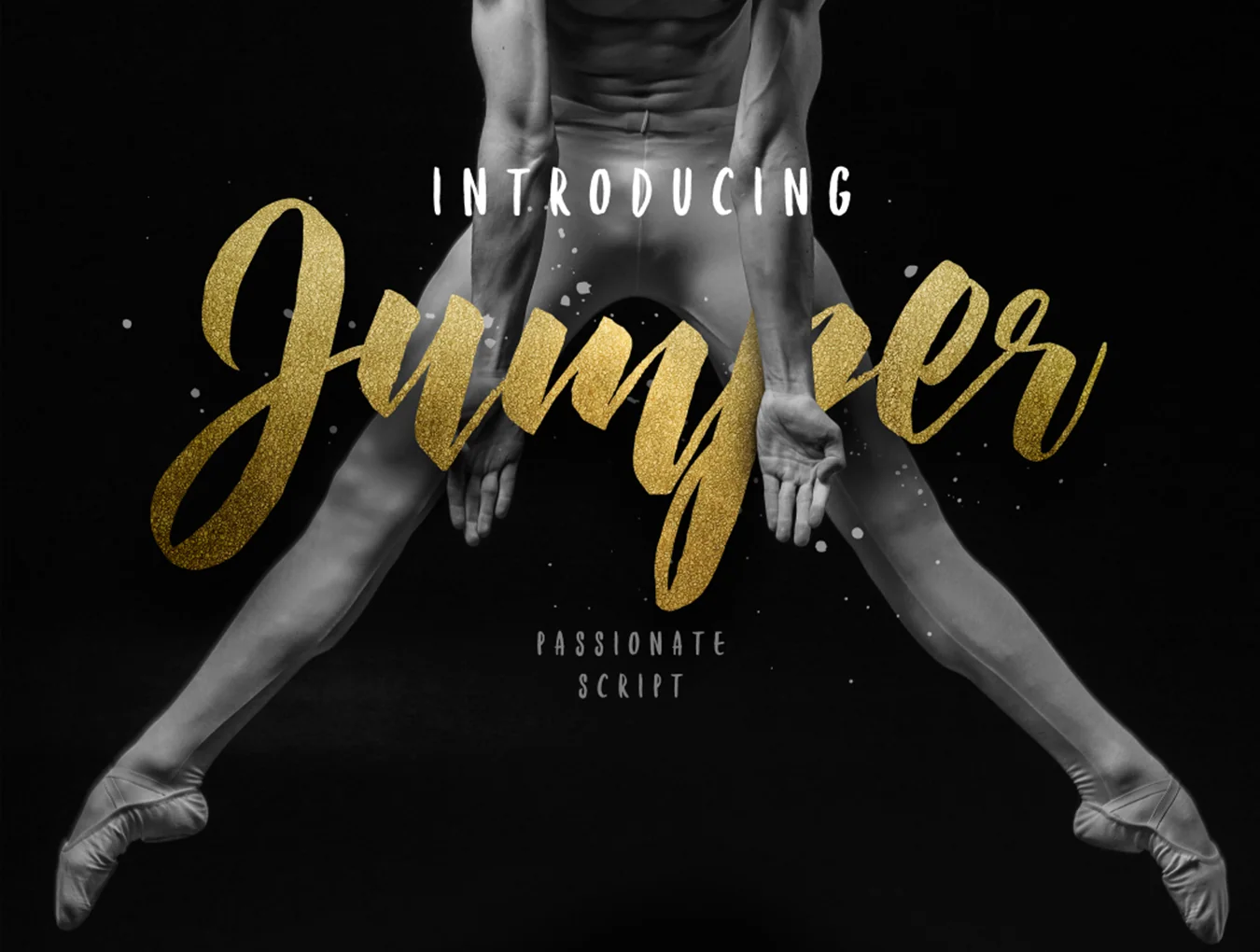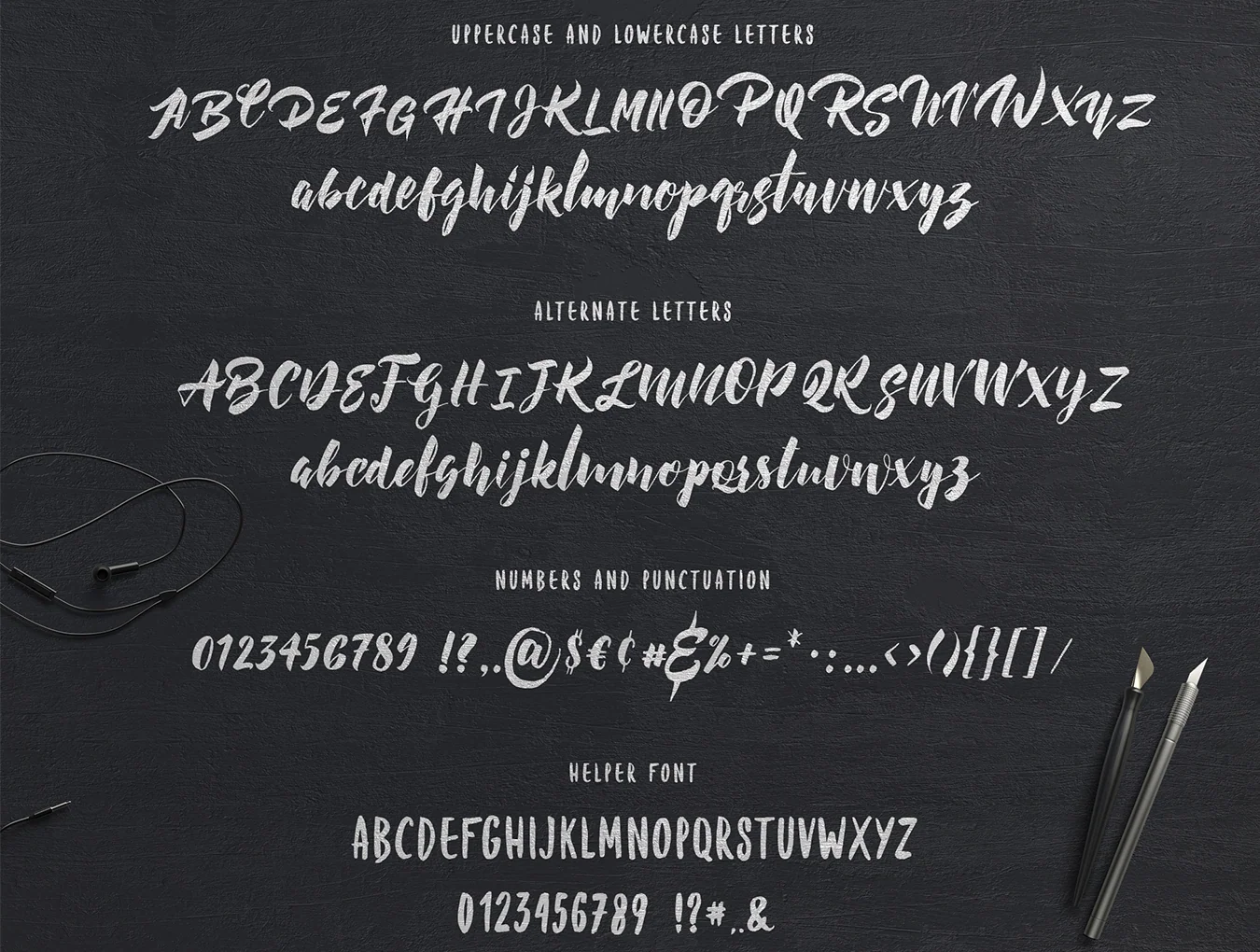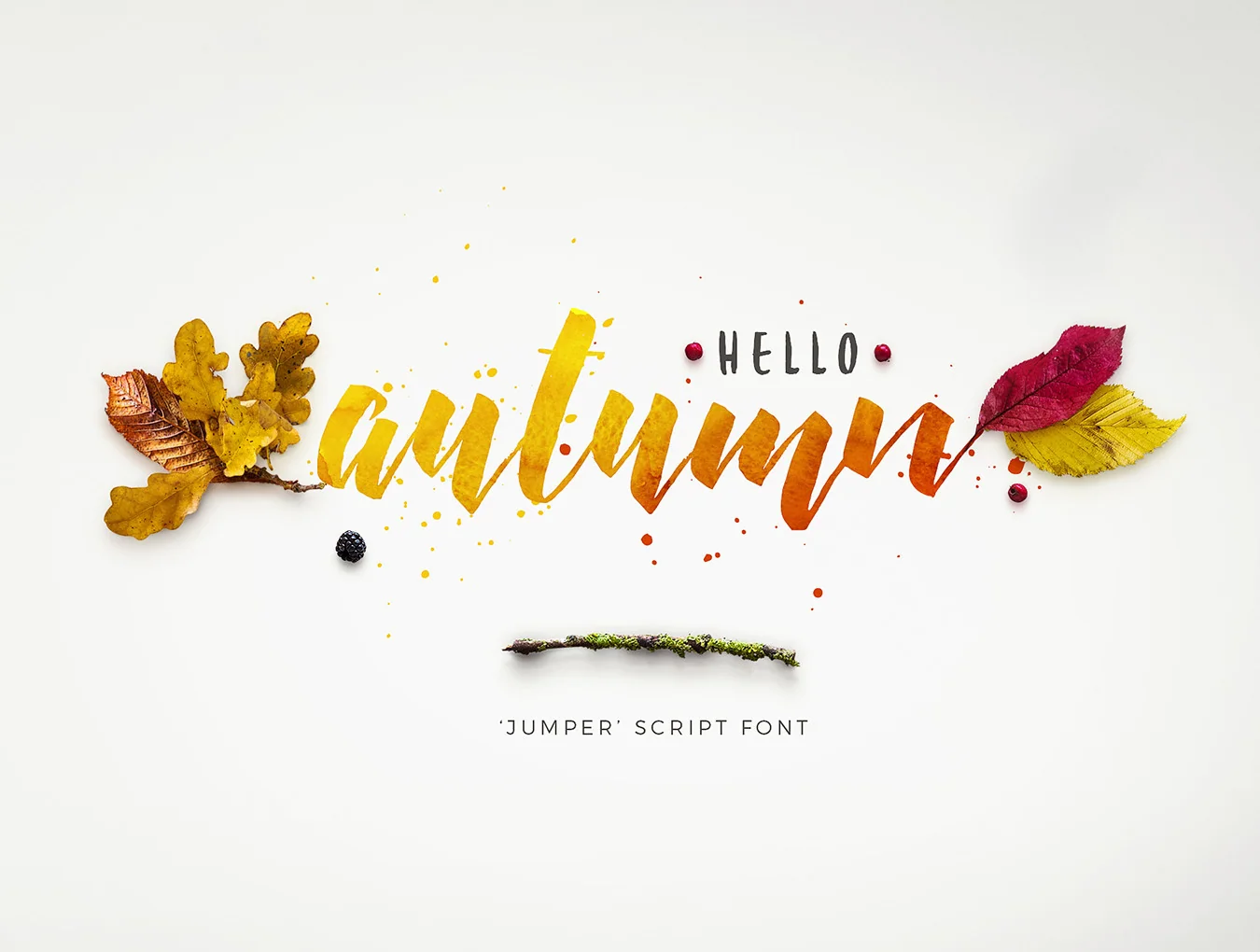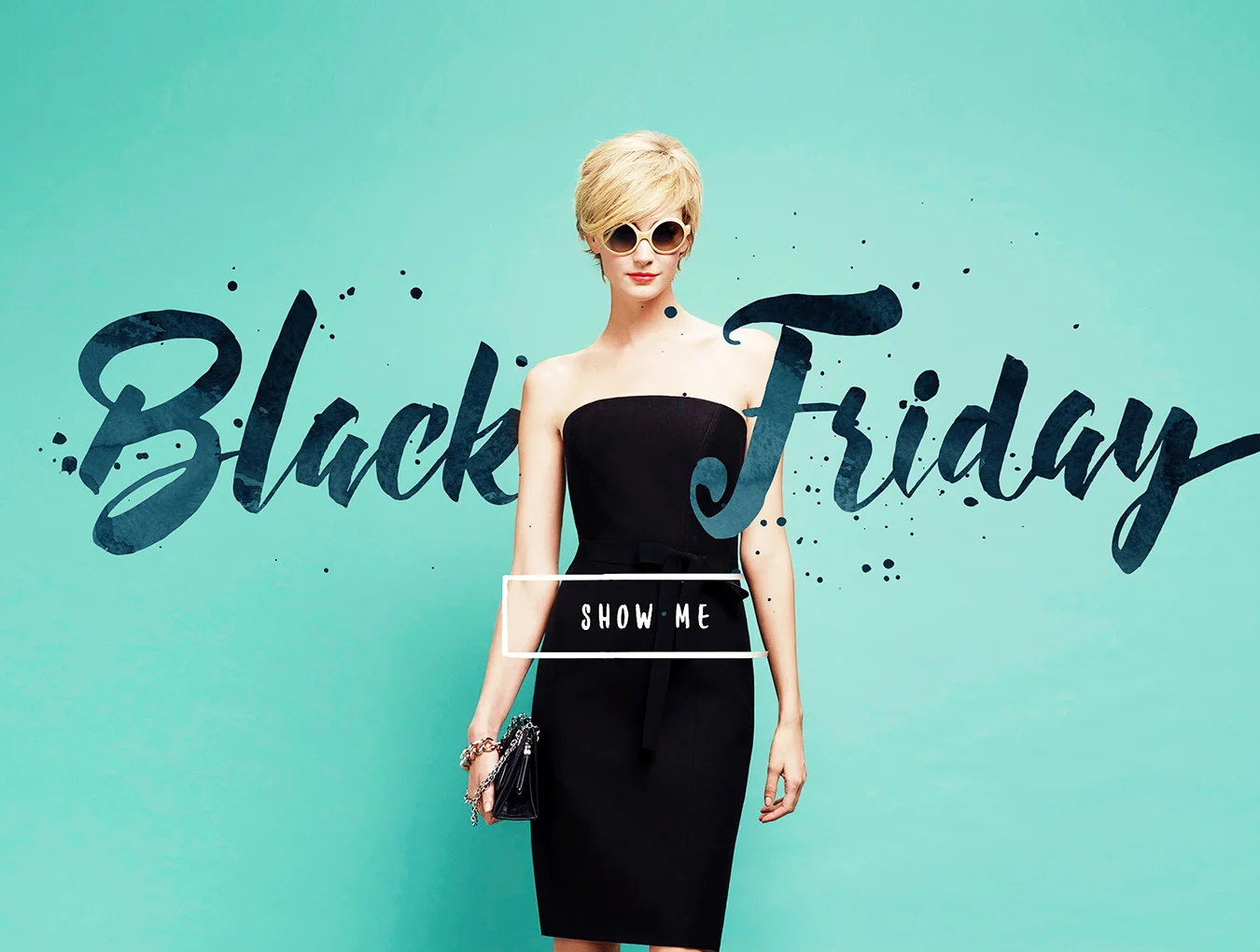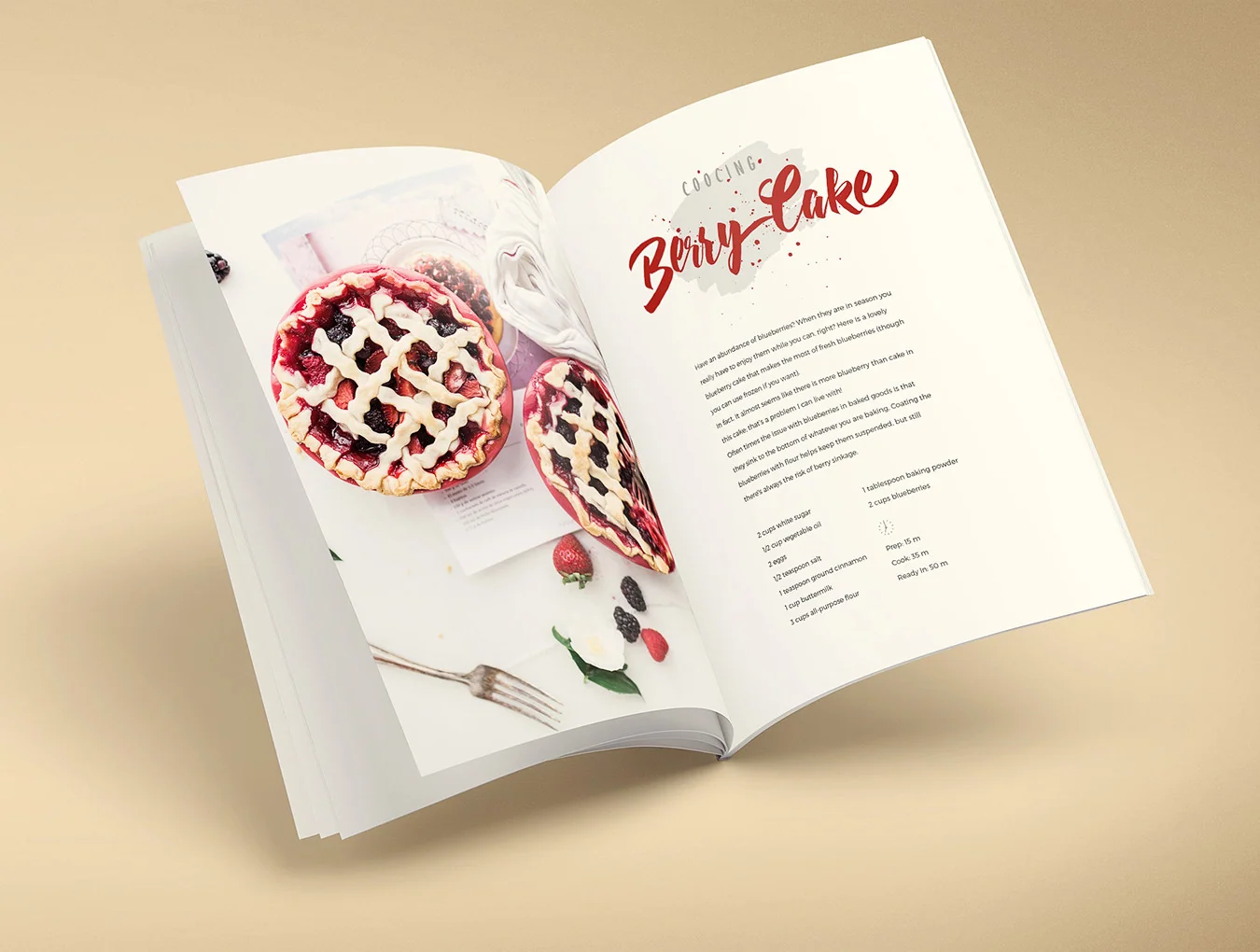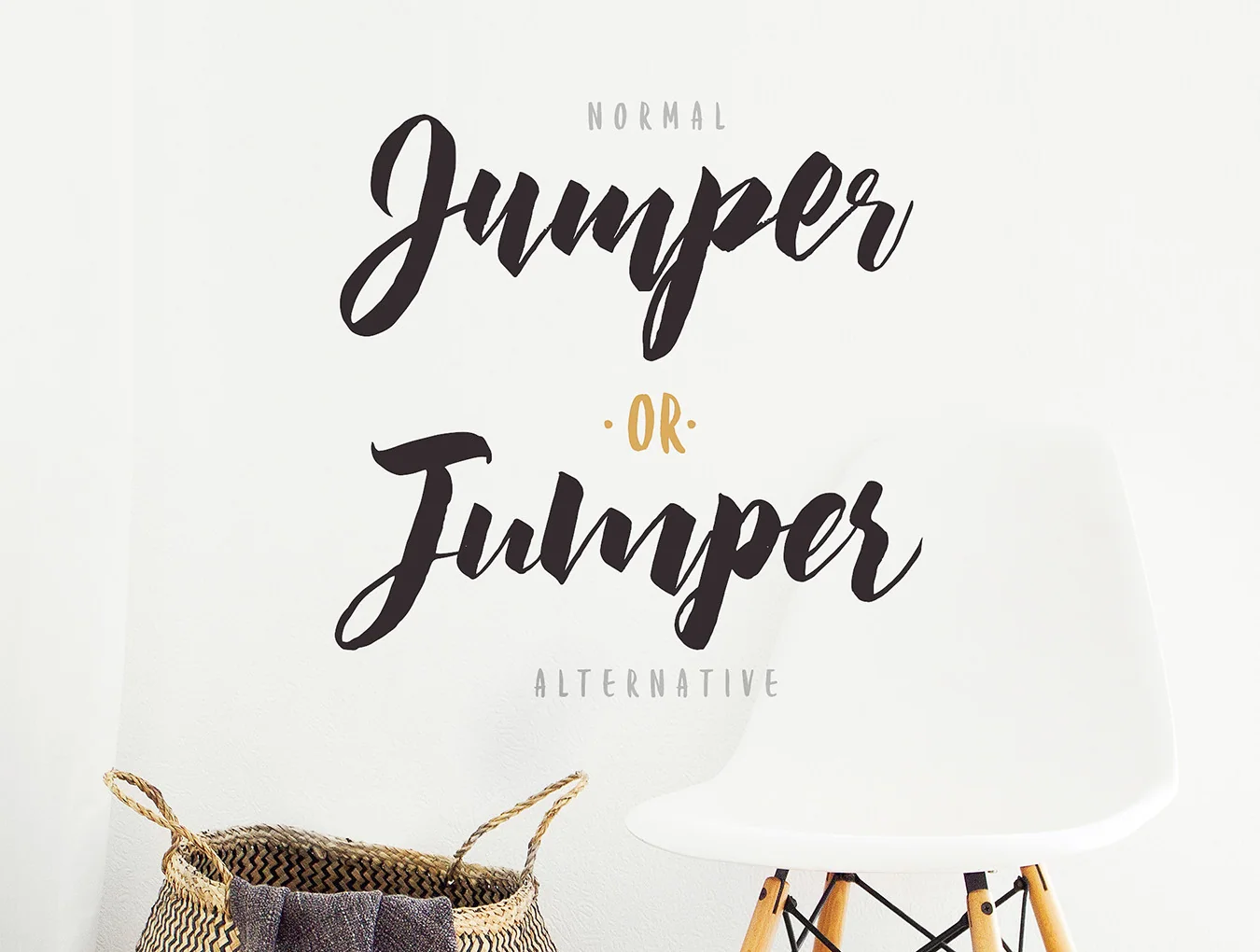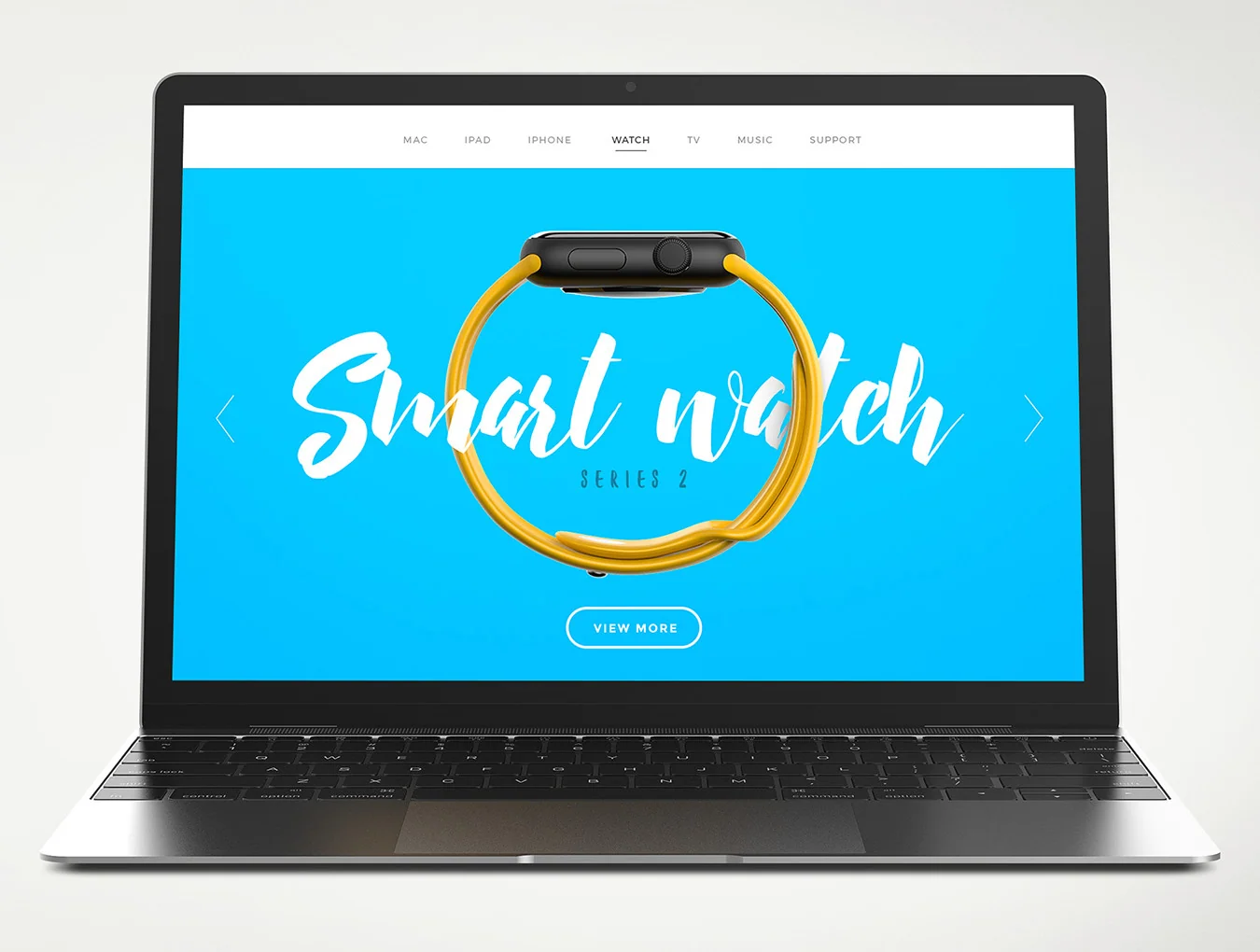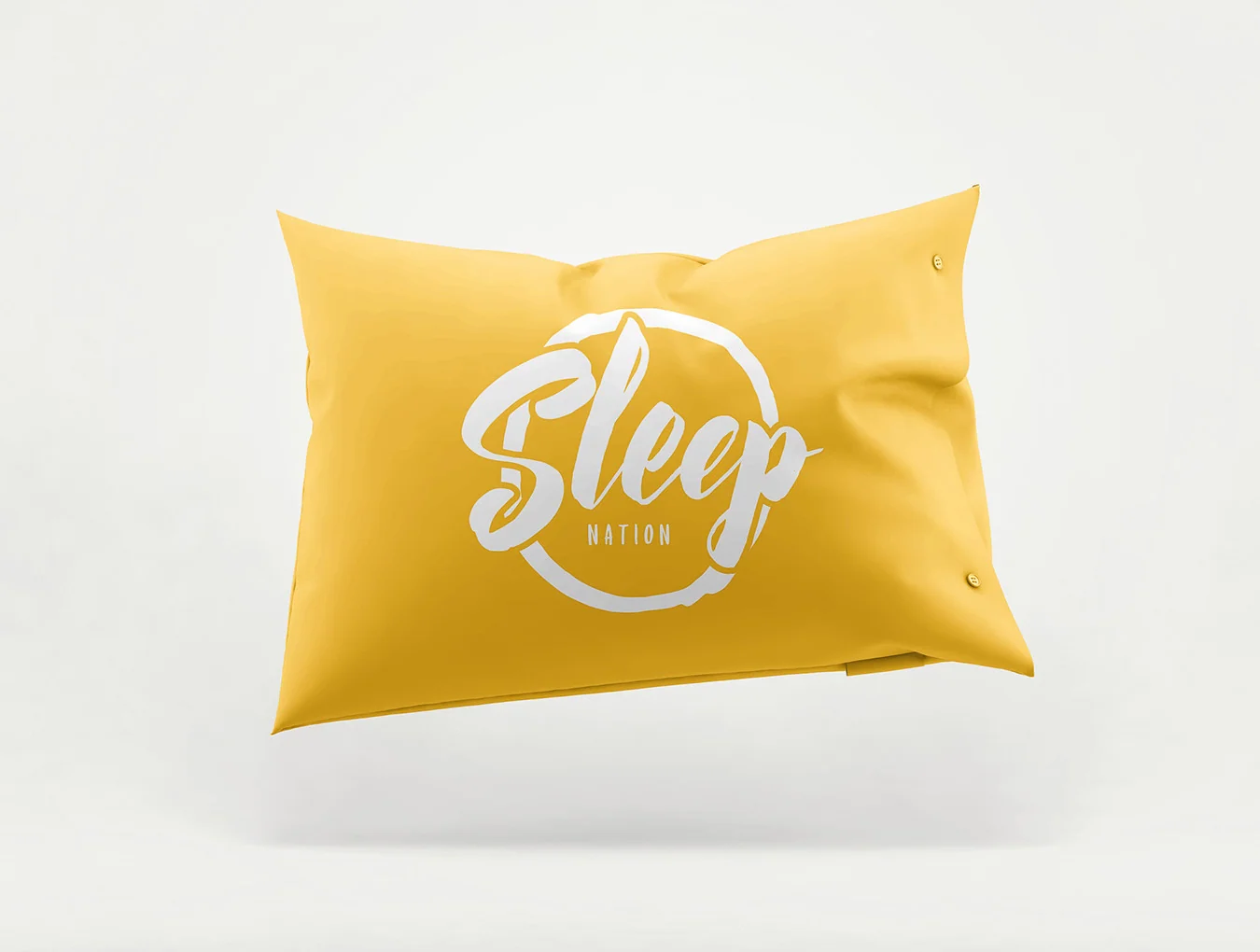
Jumper Script Font
Lovely script typeface, made with care for you
Numbers and punctuation marks
Splashes, splatter effects, and symbols
Capital and small letters
Jumper is a brush-style hand-lettered font in OTF and TTF formats, ideal for letterheads, apparel, headlines, logos, posters, cards, and more. In OpenType-ready apps, alternates can be used via Stylistic Alternates, Ligatures, or a glyphs panel.